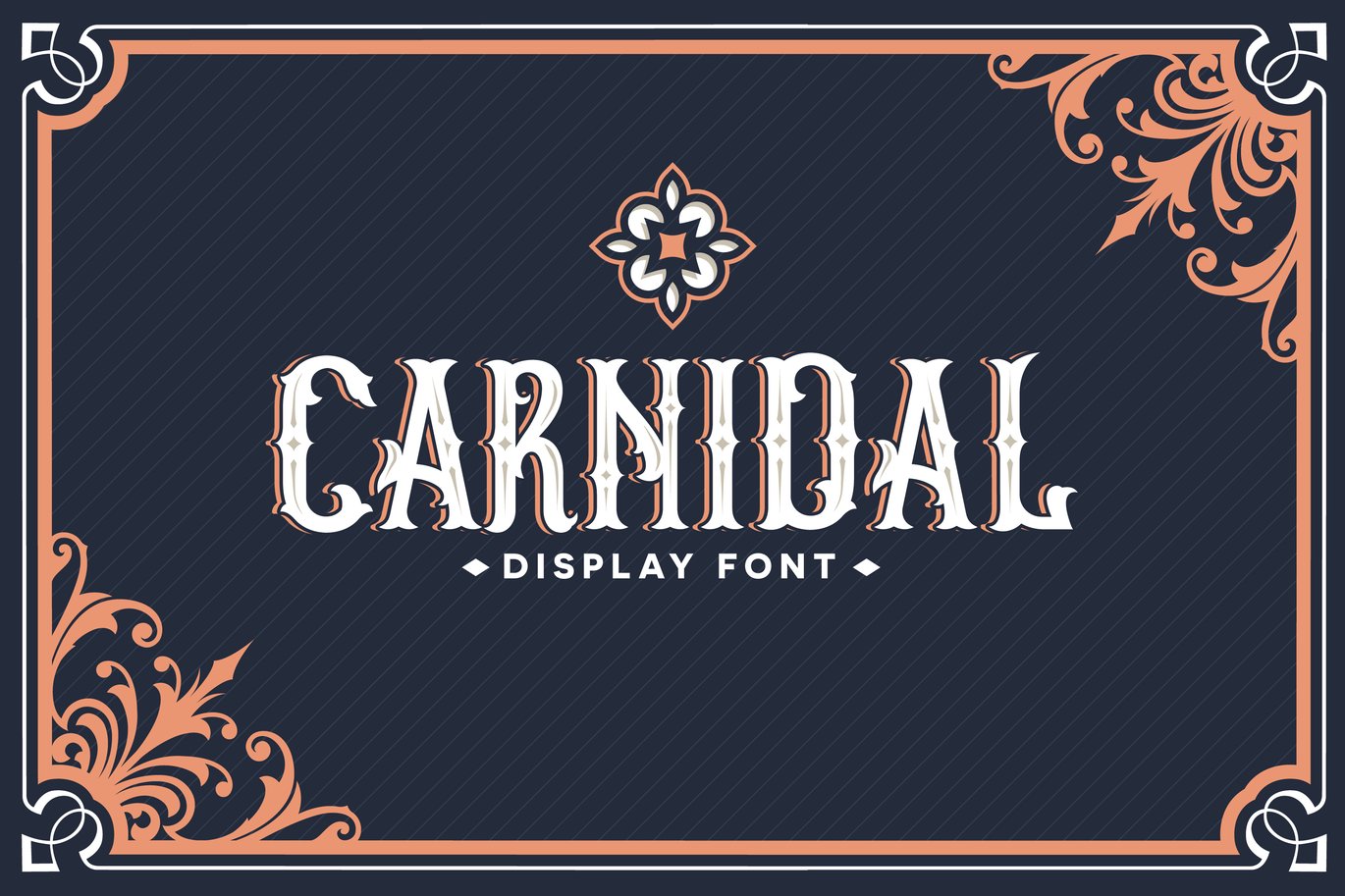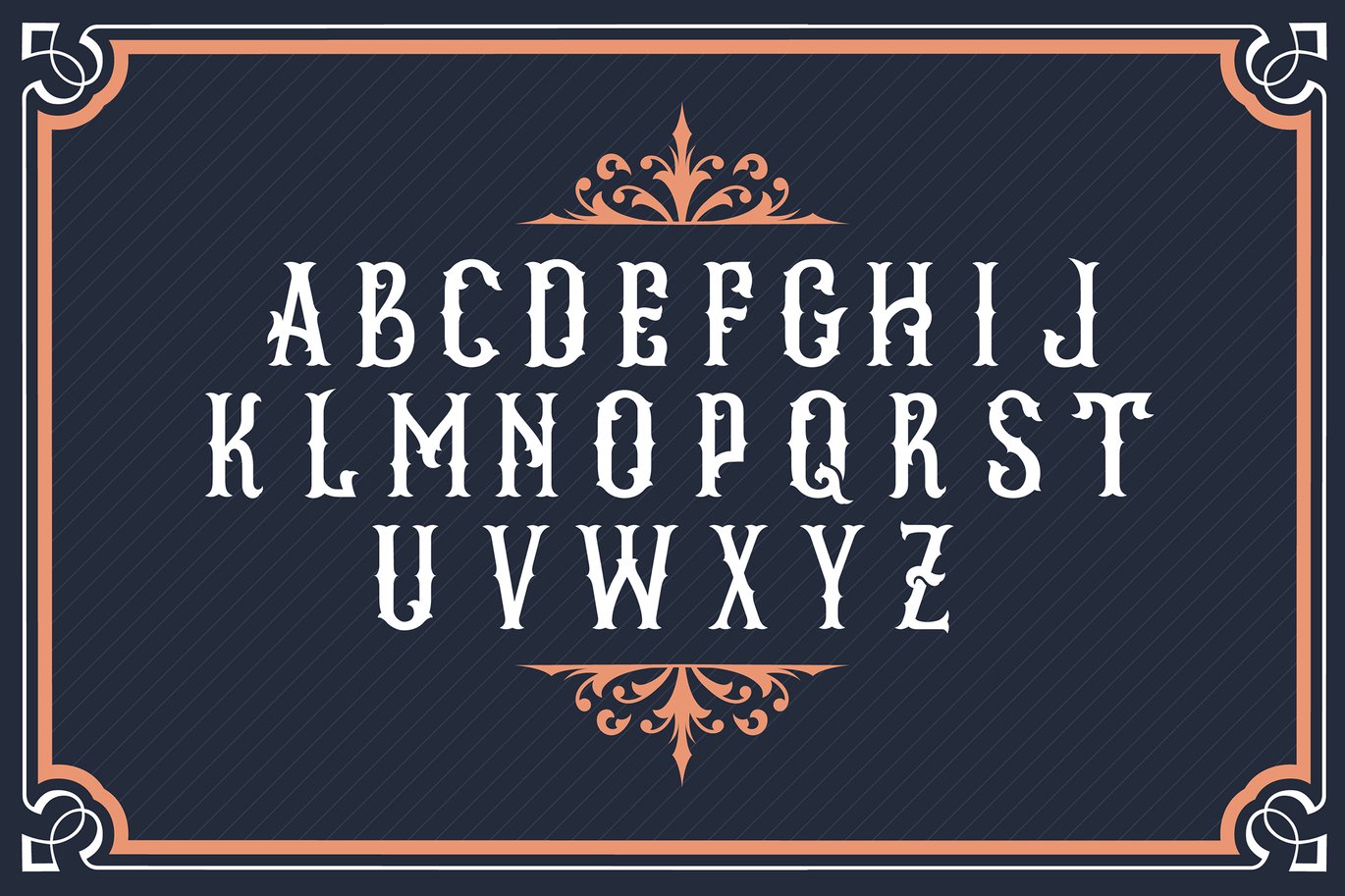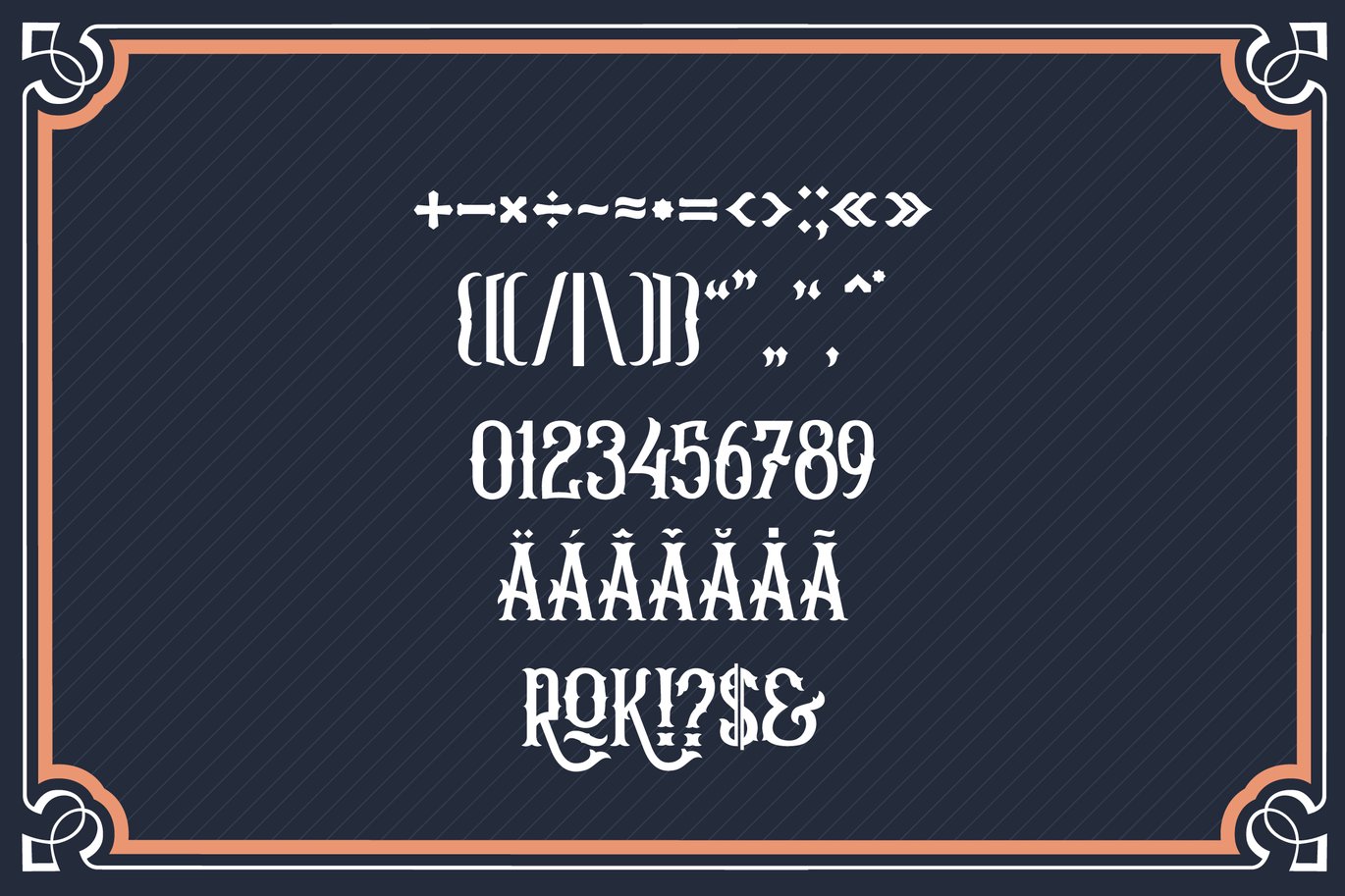
Carnidal typeface
Carnidal typeface was inspired by the victorian era. It looks elegant, old and has a royal feel to it.
This typeface is suitable for any vintage related projects.
- 26 standard letters all capitals
- 3 Unique letters
- 0-9 Numbers
- 35 Glypshs
- 7 letter modifier accents